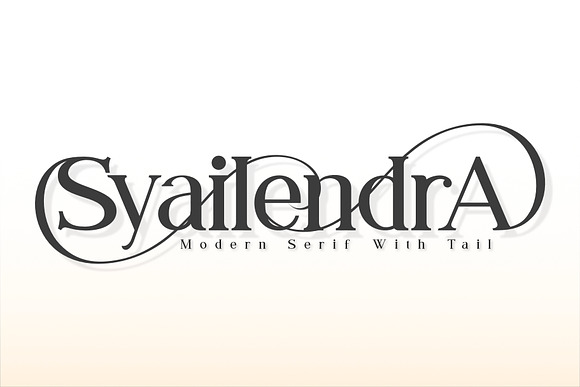
Syailendra - Modern Serif With Tail Font
Syailendra - Modern Serif With Tail Font is perfect for luxury fashion branding, editorial magazine layouts, sophisticated book covers, premium packaging designs, high-end corporate identities, elegant restaurant menus, artistic poster designs, and refined digital interfaces.
This exciting Syailendra - Modern Serif With Tail Font captivates audiences with its distinctive tail flourishes and contemporary serif character that seamlessly blends traditional elegance with modern innovation. The font's unique personality and sophisticated details make it an exceptional choice for projects requiring editorial excellence, luxury appeal, and distinctive typographic character that resonates with design-conscious audiences who appreciate refined aesthetic sophistication.
The Syailendra - Modern Serif With Tail Font family encompasses multiple stylistic variations including Regular, Bold, Light, Italic, Display, and Decorative Tail versions, providing designers with comprehensive options for creating sophisticated brand communications and elegantly distinctive typographic compositions with unique serif character.
Experience editorial sophistication with Syailendra - Modern Serif With Tail Font Free Download - an innovatively designed typeface that redefines contemporary serif typography with distinctive tail elements. This versatile font combines classical serif traditions with modern design innovation, making it ideal for brands and publications that need to communicate sophistication, originality, and editorial excellence.
The distinctive character of Syailendra - Modern Serif With Tail Font makes it particularly valuable for publishing houses, luxury brands, design agencies, and cultural institutions that need to establish sophisticated brand presence while maintaining readability and editorial credibility. Its unique styling appeals to audiences who appreciate innovative typography and sophisticated design approaches.
Editorial designers choose Syailendra - Modern Serif With Tail Font for its exceptional readability and distinctive character across various publication applications. The font maintains its sophisticated appeal from small body text to large headline displays, ensuring consistent editorial quality and typographic distinction throughout all publishing communications.
The versatile applications of Syailendra - Modern Serif With Tail Font extend from intimate literary publications to comprehensive luxury brand systems, maintaining its sophisticated character across different scales and premium contexts. This adaptability makes it invaluable for organizations requiring consistent editorial excellence across multiple sophisticated communication channels.
Premium brands utilize Syailendra - Modern Serif With Tail Font to establish distinguished identities that communicate innovation, sophistication, and editorial quality in competitive luxury markets. The typeface's unique appeal helps organizations differentiate themselves while attracting sophisticated consumers who value typographic innovation, design excellence, and refined aesthetic experiences in their brand interactions.